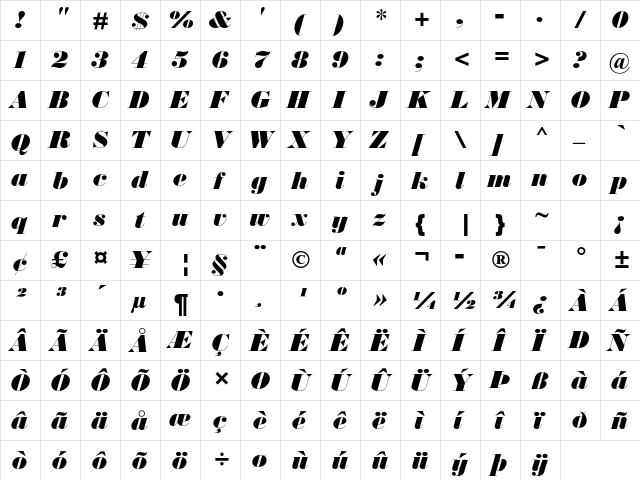
Bodoni MT Std Ultra Bold It
Design Context for Bodoni MT Std Typeface
Bodoni MT Std offers clean, dependable letterforms without strong stylistic allegiance, making it a practical choice for designers who need flexibility. Its bold stroke weight gives it real presence on the page.